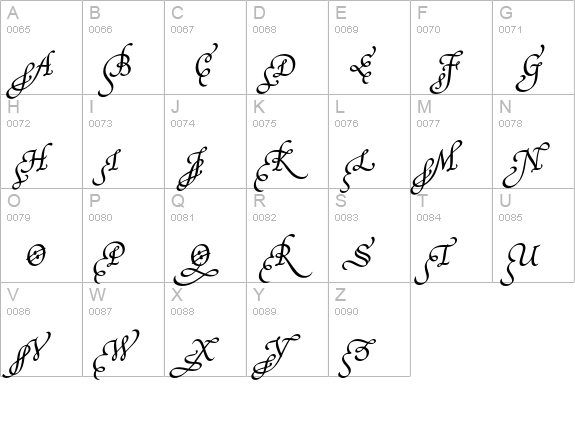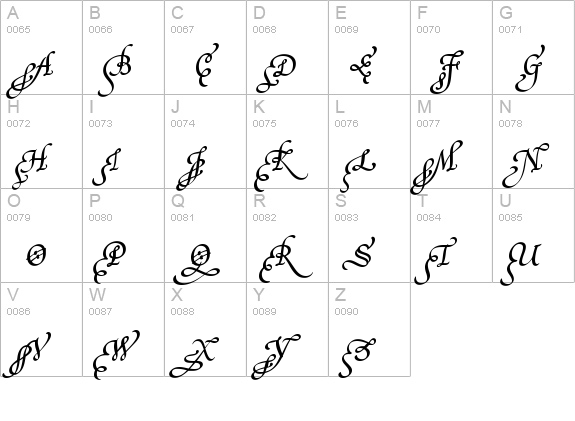
Poetica Supp Initial Swash Capitals Font Details
Poetica Supp Initial Swash Capitals font is a stunning display font that exudes elegance and sophistication. With its intricate swashes and ornate details, this font is perfect for adding a touch of luxury to your projects. The elaborate swirls and flourishes of the swash capitals make a striking statement, capturing the essence of classic calligraphy with a modern twist. This font is versatile and can be used for a variety of projects, from wedding invitations to branding materials to elegant packaging. Its timeless and graceful design will elevate any design it is used in, making a lasting impression on viewers. And the best part? Poetica Supp Initial Swash Capitals font is completely free to download at FontsMarket.com. So, add a touch of sophistication to your designs with this exquisite font today!